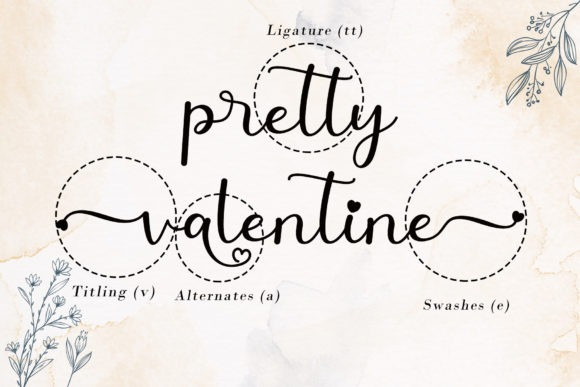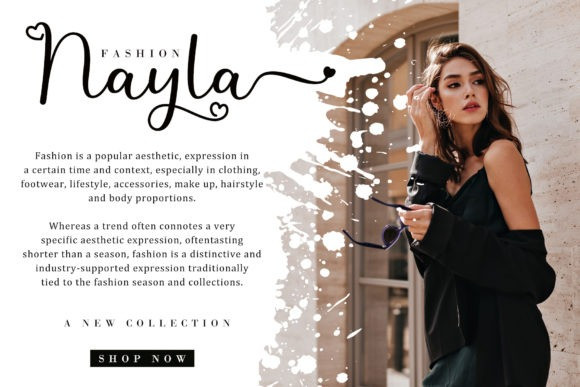
Almost Valentine Font
Almost Valentine Script Font is a beautiful and romantic script font. Fall in love with its authentic feel and use it to create gorgeous wedding invitations, beautiful logos and stationary art, eye-catching social media posts, cute greeting cards, and many more.